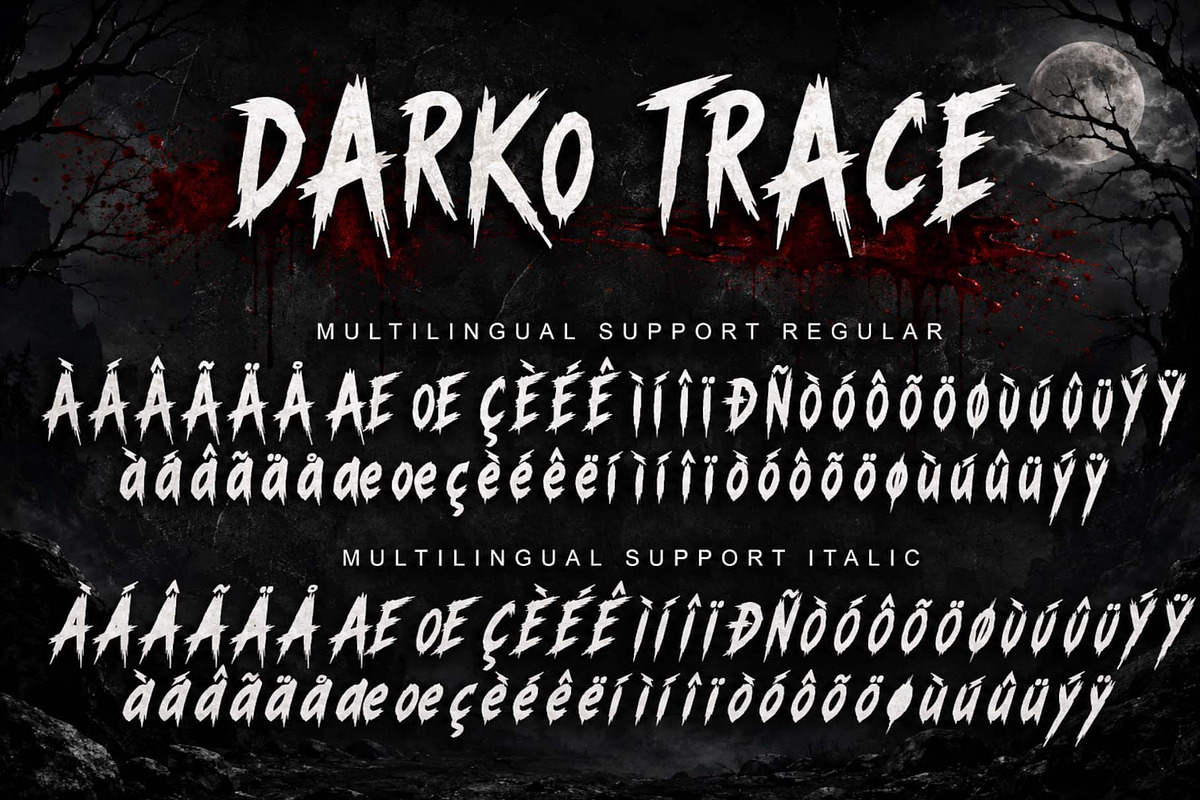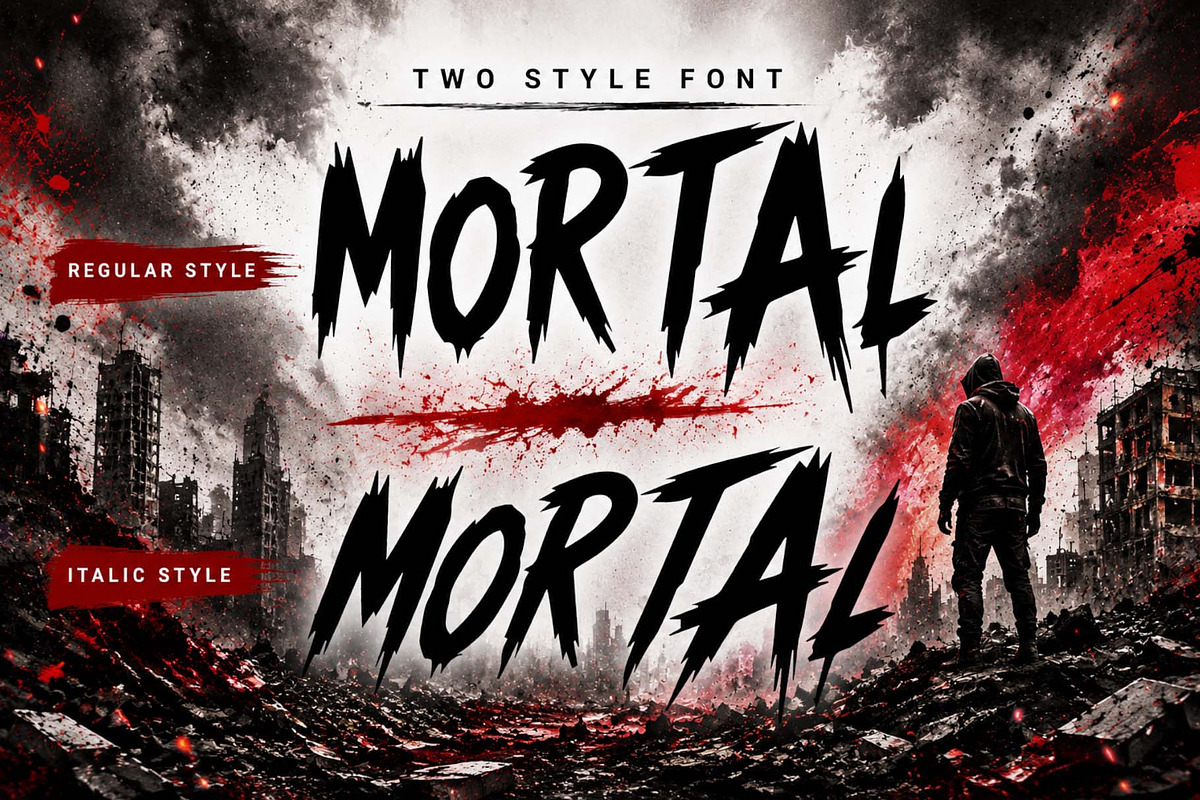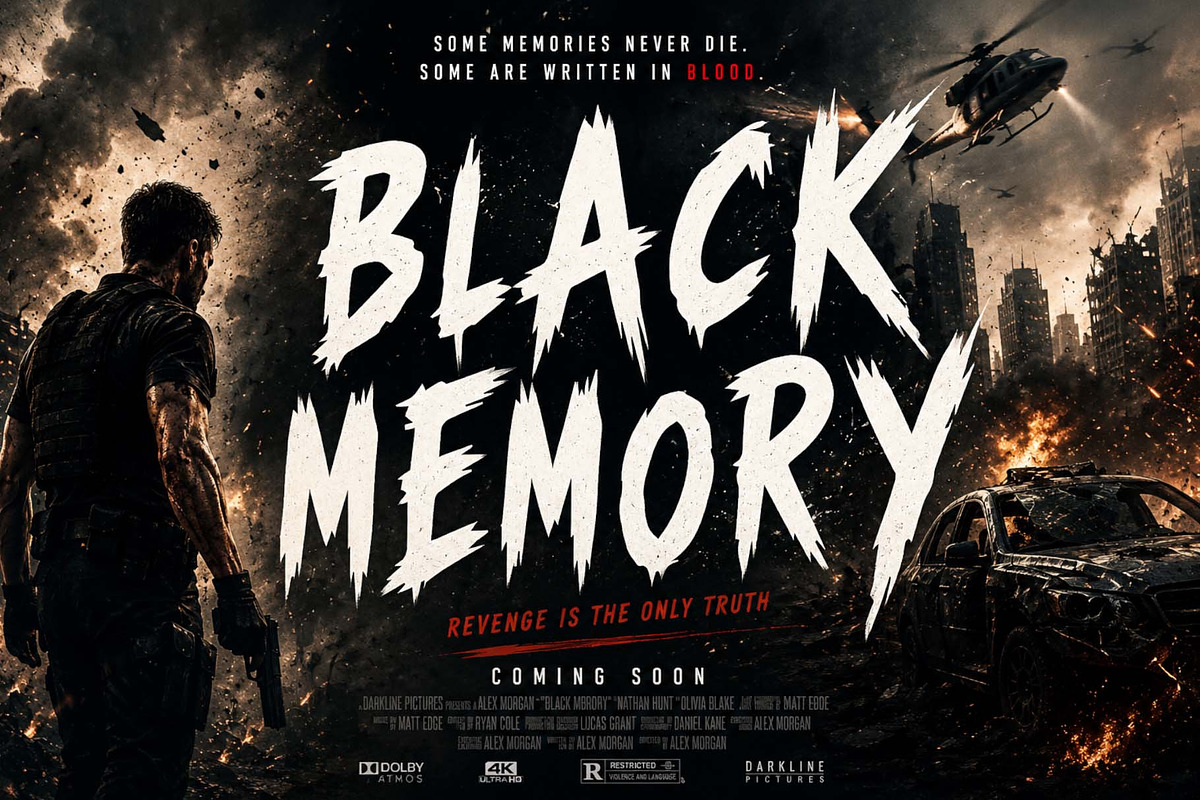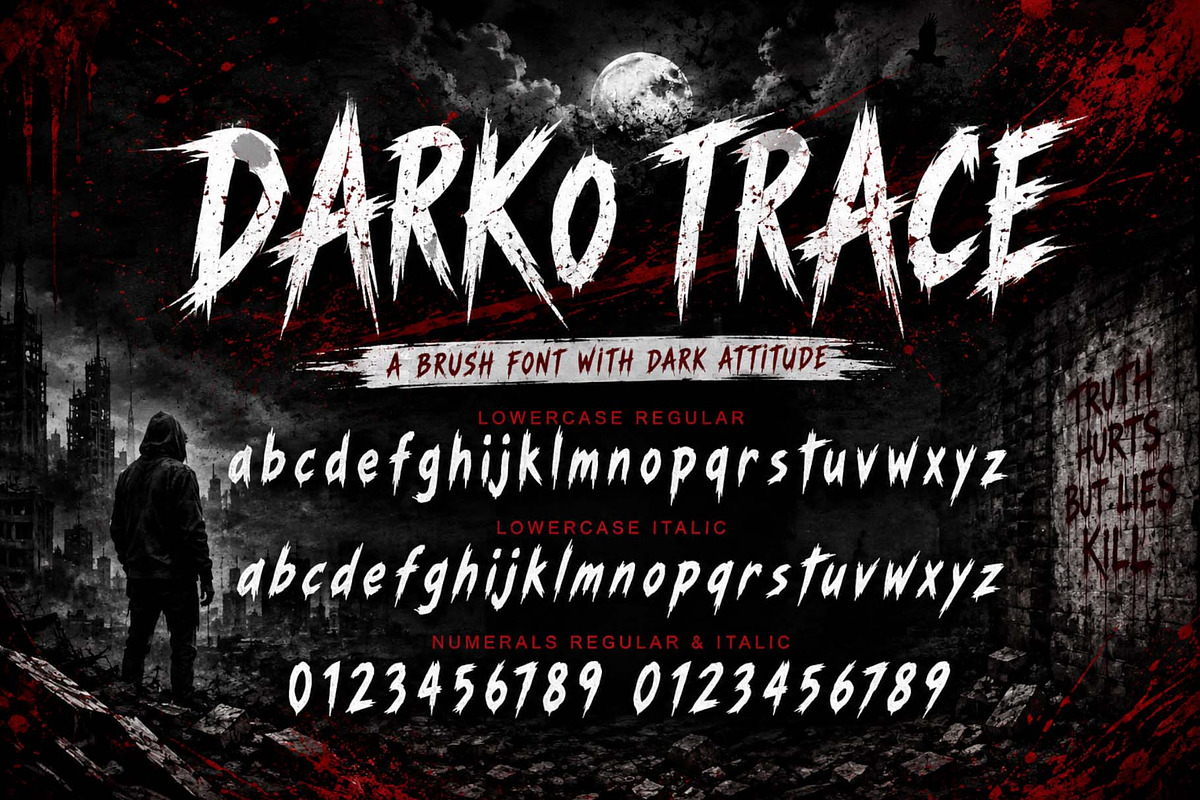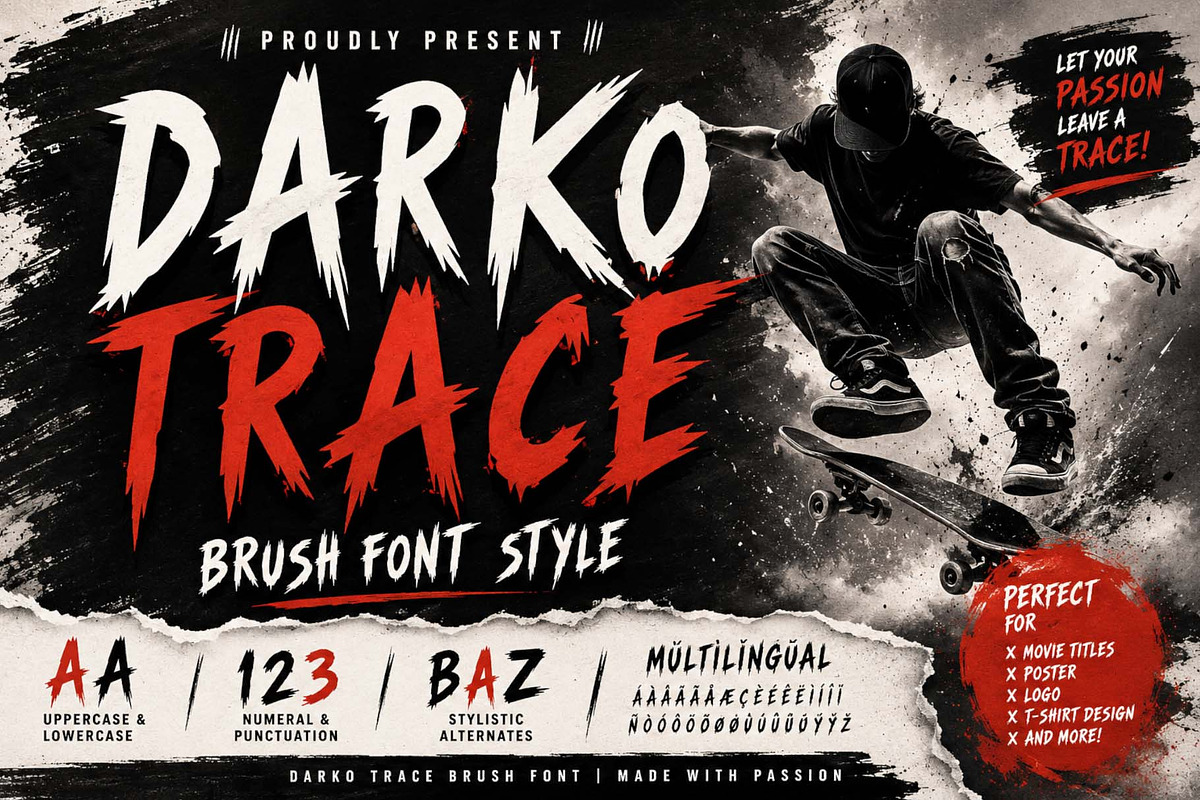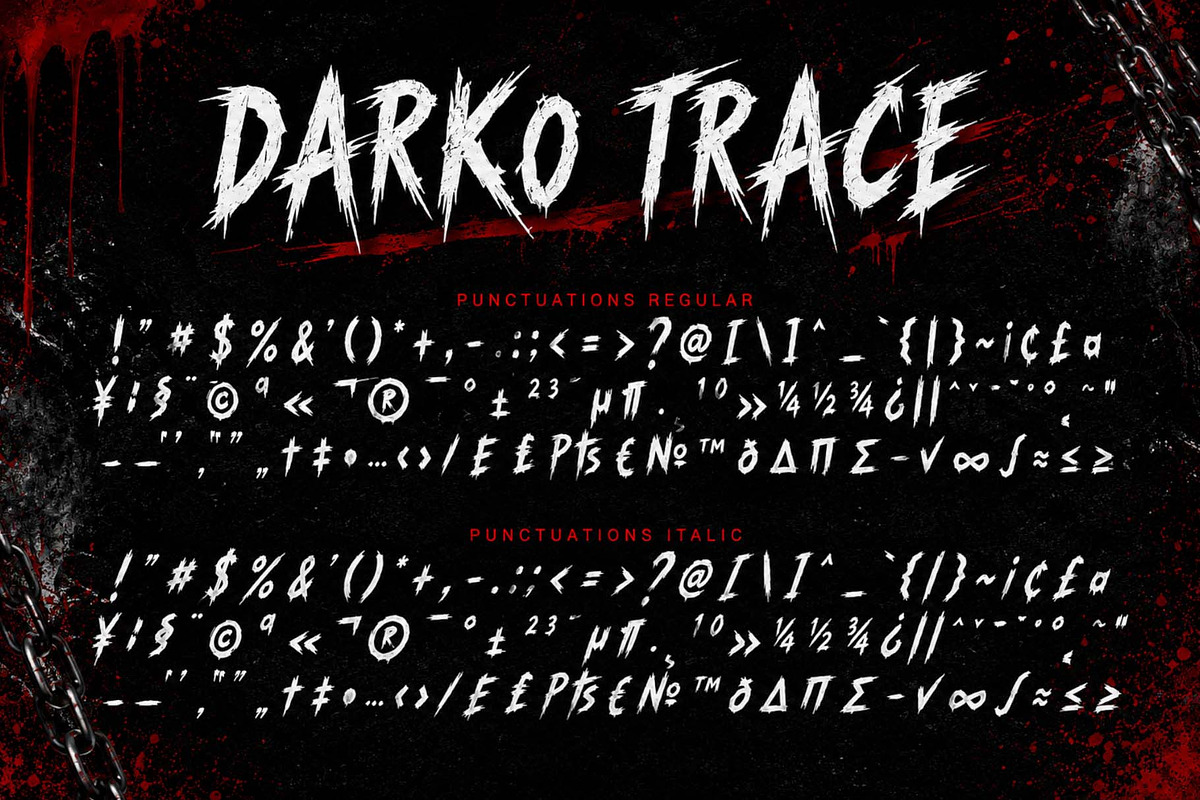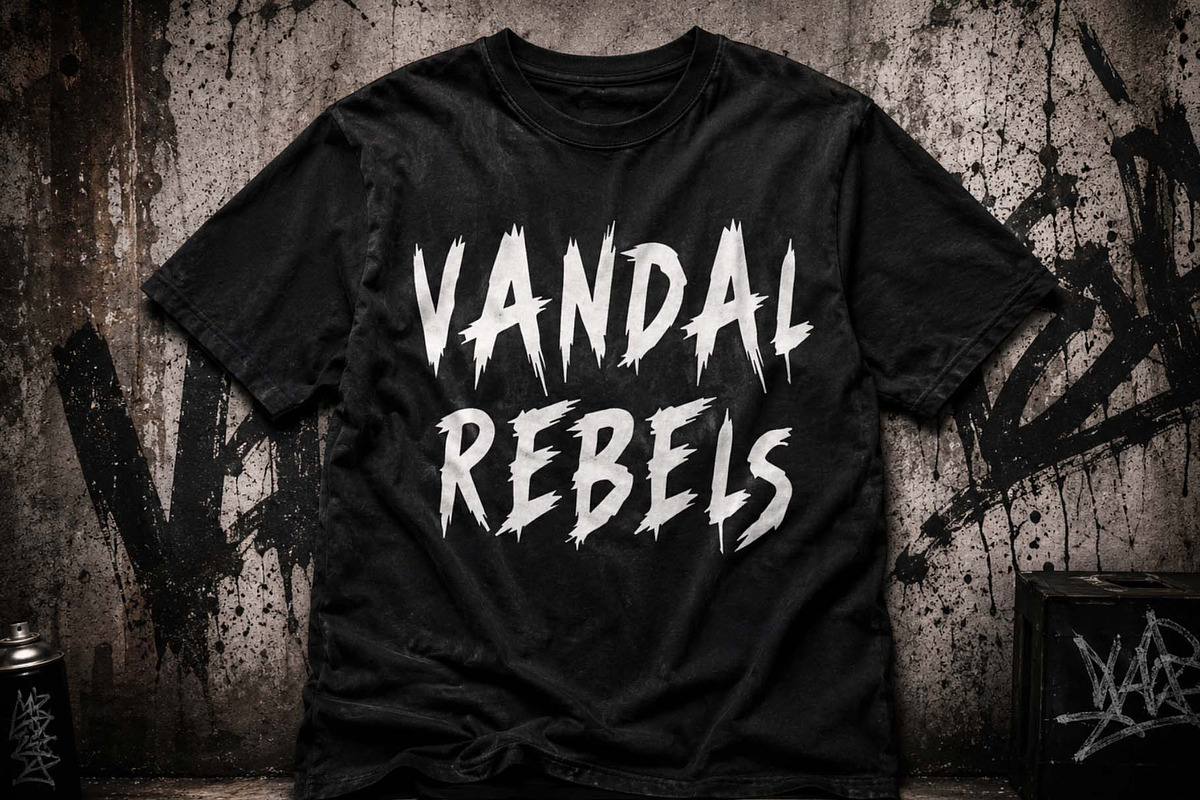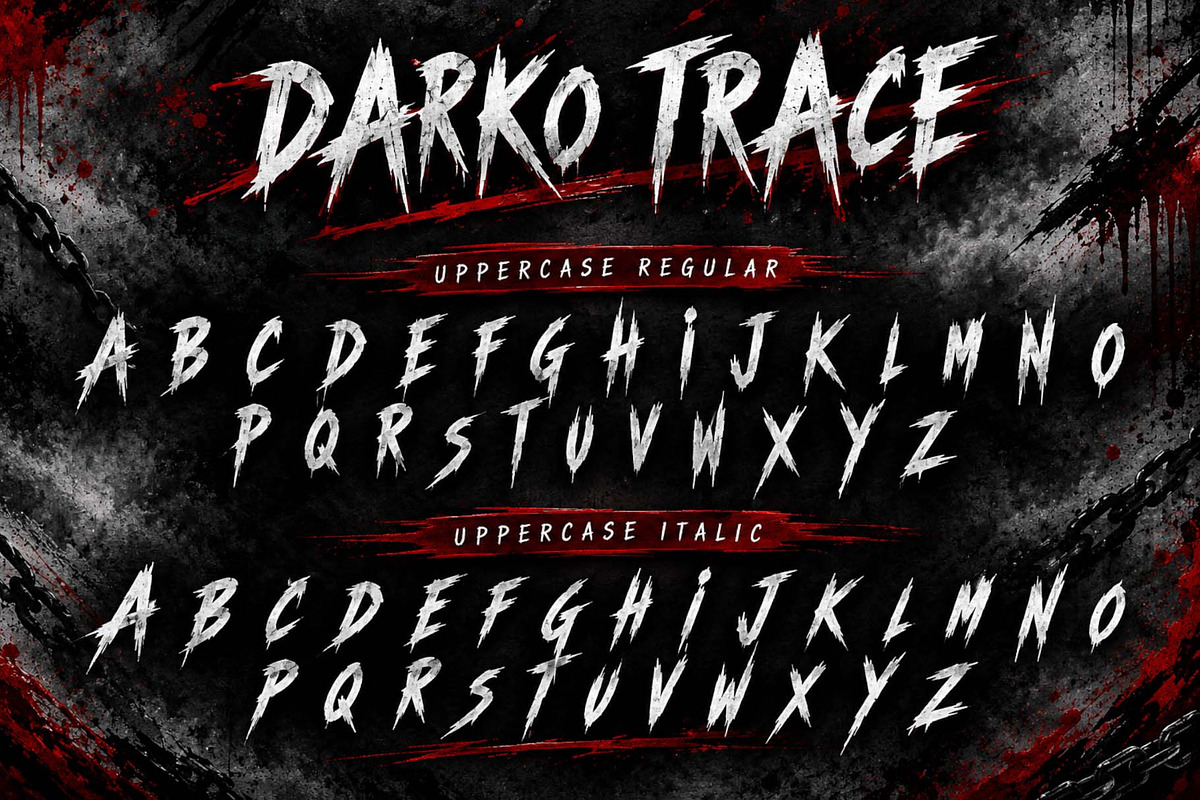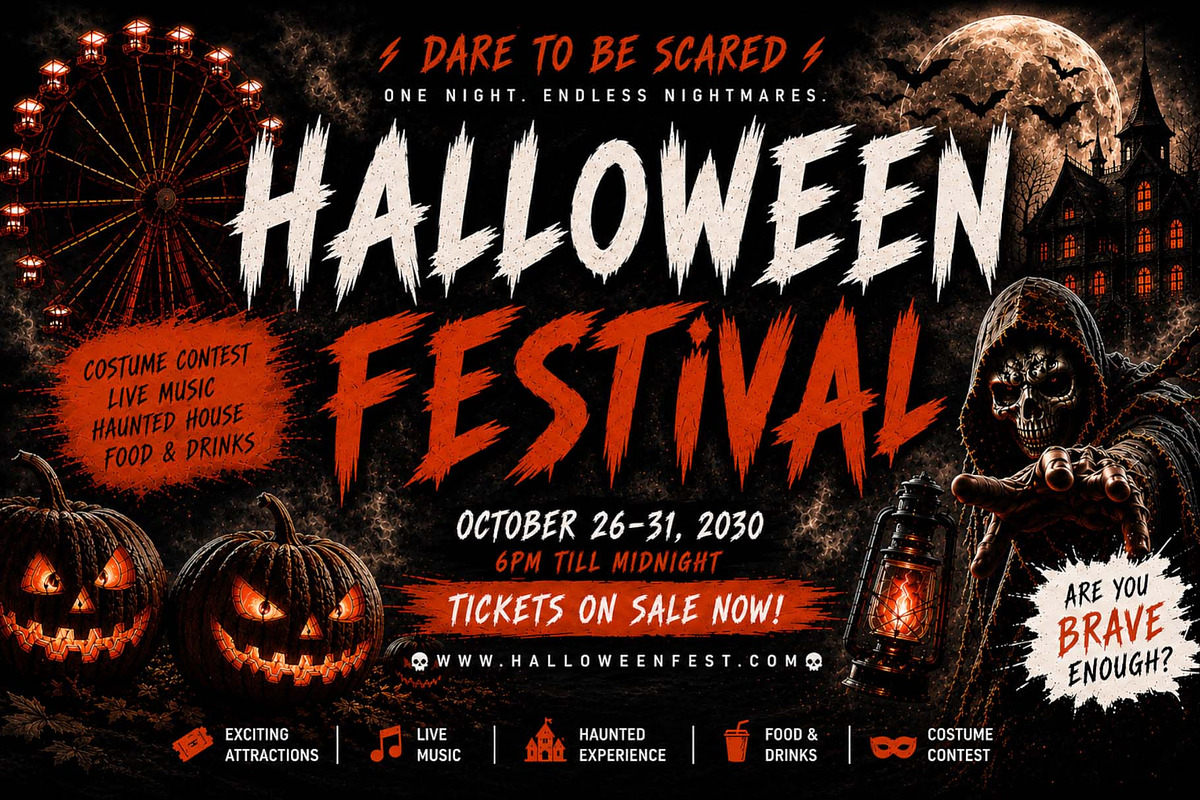
Darko Trace
Darko Trace is a bold brush font with sharp, rough strokes that deliver intense and fearless visual impact. It's perfect for action movie titles, horror posters, games, and street style branding. Featuring multilingual support, stylistic alternatives, and full punctuation, this font offers creativity and flexibility. Make every design stand out with a strong, handcrafted look that leaves a lasting impression.